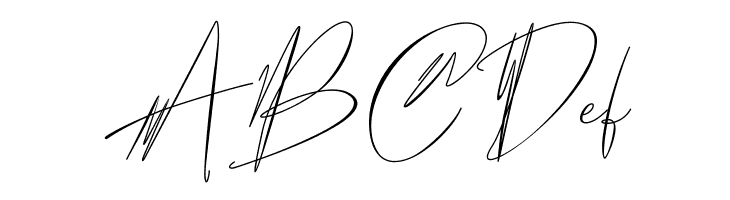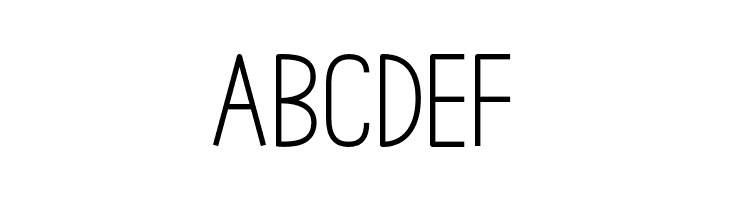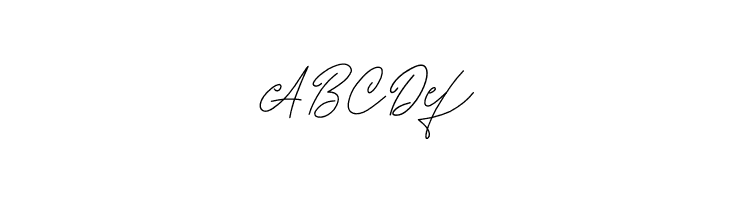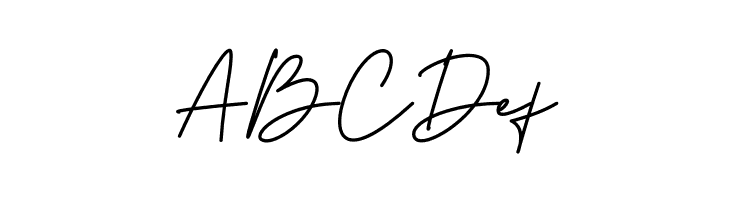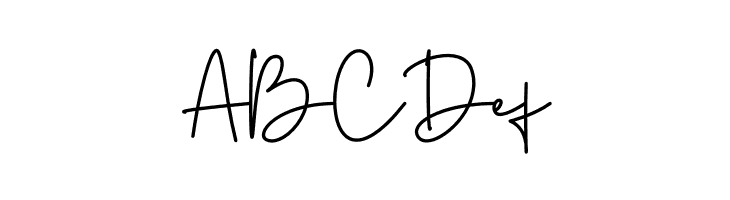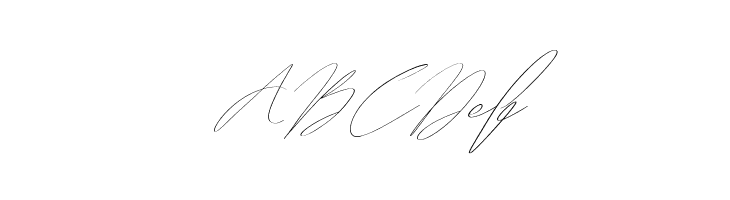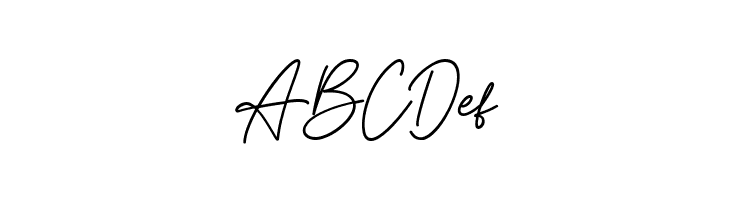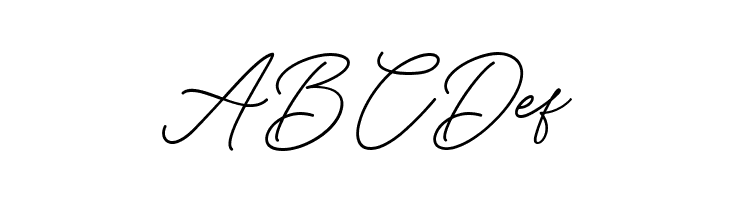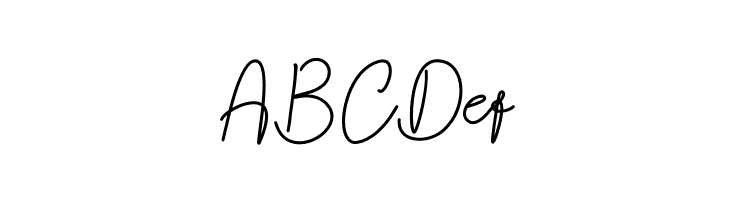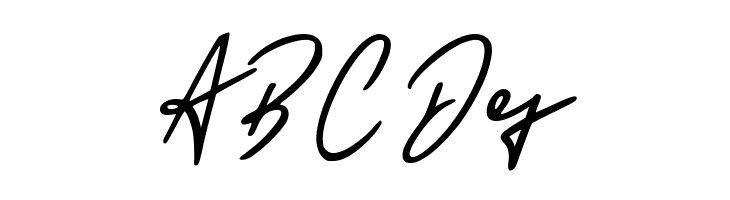
A cursive, handwritten-style font with elegant, flowing lines.
A playful, handwritten font with smooth, flowing lines and a casual aesthetic.
A playful, casual handwritten font with flowing letterforms.
An elegant, flowing script font with a handwritten style.
An elegant, cursive font with a flowing, handwritten style.
A sophisticated, elegant handwritten font with fluid cursive strokes.
A cursive, handwritten-style font with elegant, flowing strokes.
A fluid, handwritten-style font with a personal and artistic flair.
A sophisticated, elegant handwritten font with fluid, continuous strokes.
A sophisticated, flowing script font with an elegant, handwritten style.
A refined and elegant script font with fluid, flowing letterforms.
A delicate and elegant script font with flowing, cursive letterforms and high contrast strokes.
A fluid, cursive handwritten font with a natural signature style.
An elegant and flowing cursive script font with a refined and sophisticated style.
A modern, elegant handwritten font with smooth, flowing lines.
An elegant, flowing script font with a handwritten style.
A delicate and elegant handwritten font with fluid, continuous strokes.
A modern, elegant script font with fluid, dynamic strokes and a handwritten quality.
A sophisticated, elegant handwritten script with fluid, connected letterforms.
A modern, handwritten font with a casual and elegant style.
A modern, elegant handwritten font with fluid, continuous strokes and a dynamic slant.
A graceful and elegant handwritten script font with flowing curves.
A sophisticated, elegant handwritten font with fluid strokes and a natural flow.
An elegant, flowing script font with a sophisticated, handwritten style.
A graceful, handwritten script font with flowing, connected letters.
Elegant handwritten signature font.
A modern, handwritten cursive font with elegant, flowing lines.
Handwritten script font with a casual, signature-like style.
A sophisticated cursive script with fluid, connected strokes.
A sophisticated, elegant handwritten font with fluid, continuous strokes.
An elegant, cursive handwritten font with flowing lines and sophisticated curves.
A sophisticated, elegant handwritten font with fluid, continuous strokes.
A clean, modern sans-serif font with geometric structure and consistent stroke widths.
A modern, geometric sans-serif font with a clean and minimalist design.